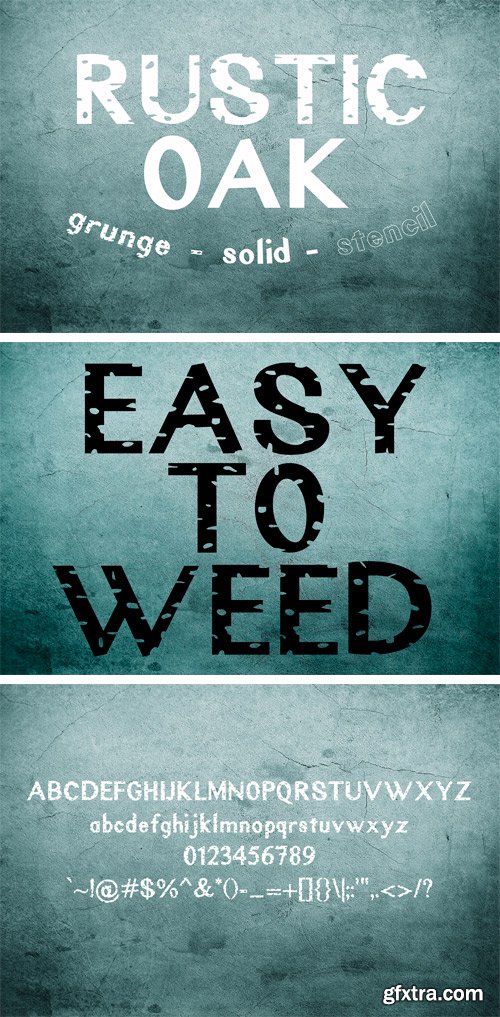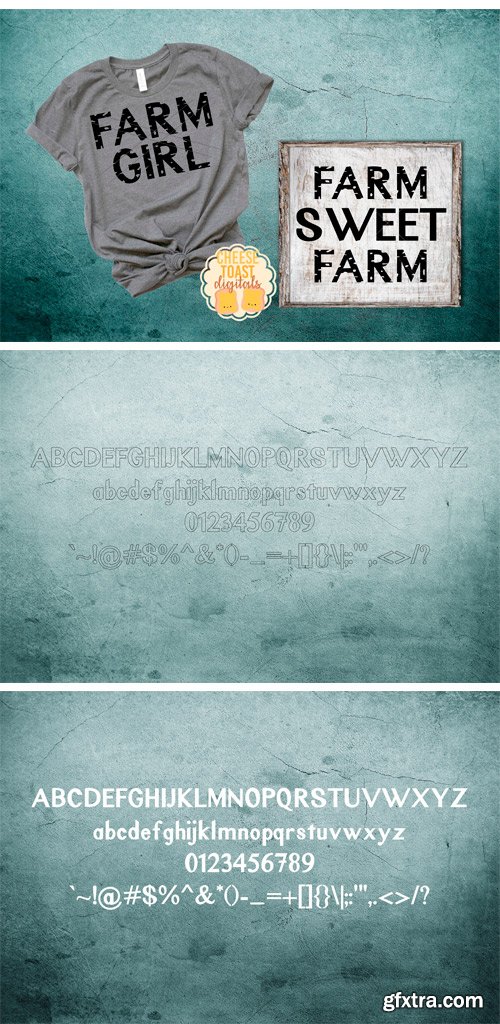
Rustic Oak is perfect for so many projects! This listing includes THREE fonts! For Cricut and Silhouette users, the grunge font is super easy to weed! The grunge marks were placed and sized with cutting machine in mind. The stencil font can help with your sign projects. These fonts look great printed as well.